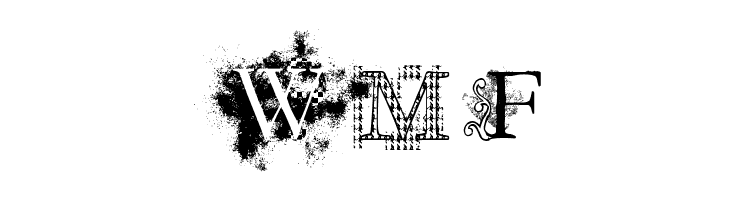
An abstract, hand-drawn font with irregular, brush-like letterforms enclosed in circular shapes.
A rugged, distressed font with a hand-drawn, textured appearance.
Bold, outlined font with a distressed, edgy texture.
A modern, decorative font with elongated, narrow letterforms and a unique geometric style.
A bold, gothic-style font with sharp serifs and a medieval flair.
A gothic-inspired serif font with sharp, angular serifs and a dramatic flair.
A dramatic and elegant font with sharp serifs and flowing curves, ideal for fantasy themes.
A decorative font inspired by medieval and knightly themes, featuring intricate and ornate designs.
A highly decorative and abstract font with geometric and fragmented character design.
A playful, interconnected font with a modern and flowing design.
An abstract, collage-like decorative font with a chaotic and artistic design.
A decorative, geometric font inspired by the De Stijl art movement.
An abstract, Bauhaus-inspired decorative font with geometric and artistic character designs.
A modern, geometric font with sharp angles and clean lines.
A decorative and geometric font with a futuristic and avant-garde style.